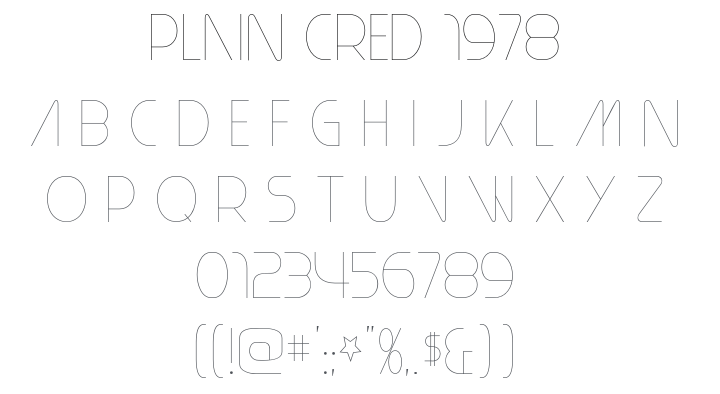
Plain Cred 1978 Font
About Plain Cred 1978
Plain Cred 1978 is an ultra-thin, hairline geometric sans-serif display typeface with elegant letterforms and minimal stroke weight — clean, airy, and quietly sophisticated. Its razor-fine strokes give it a refined, almost architectural delicacy that feels distinctly 1970s modernist. Perfect for luxury fashion branding, high-end editorial headlines, cosmetic packaging, art gallery signage, and any design needing effortless, understated elegance.